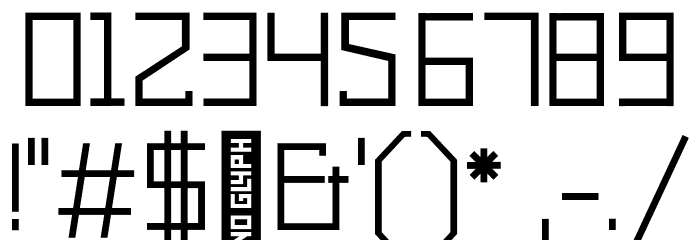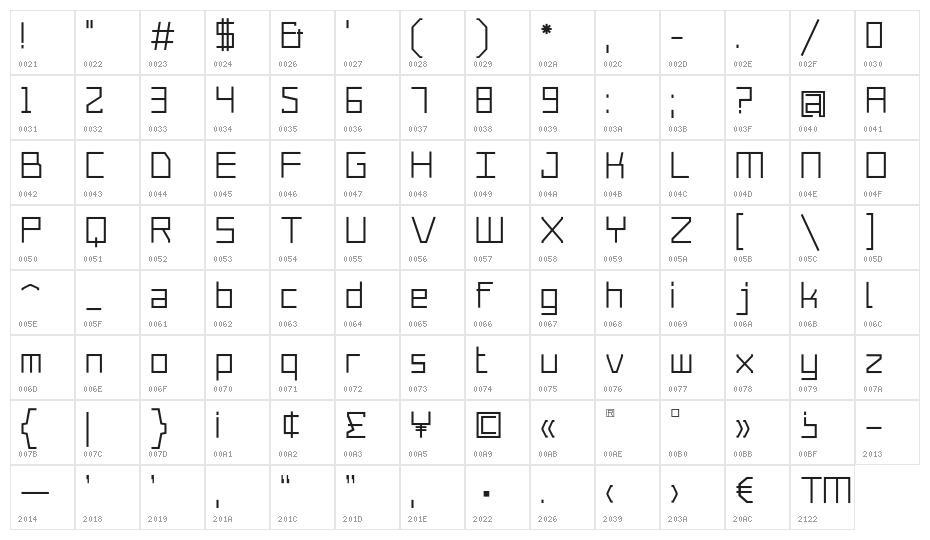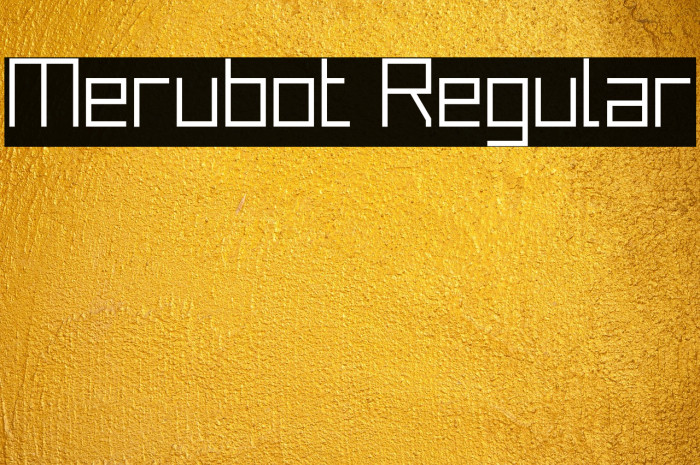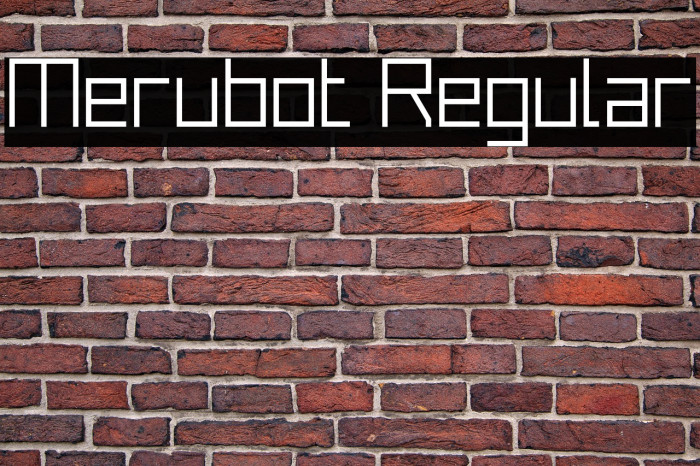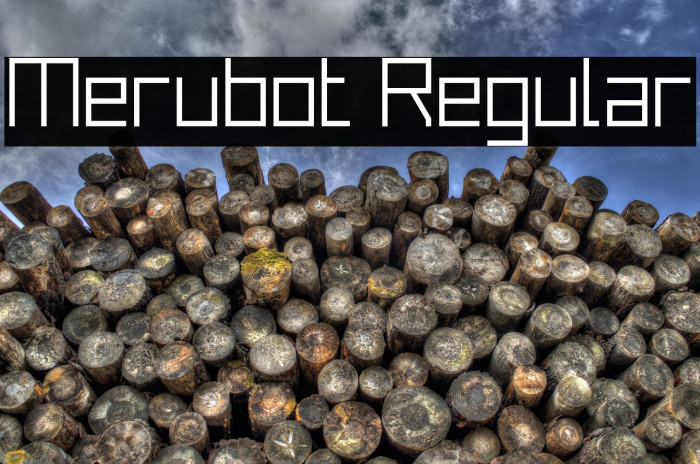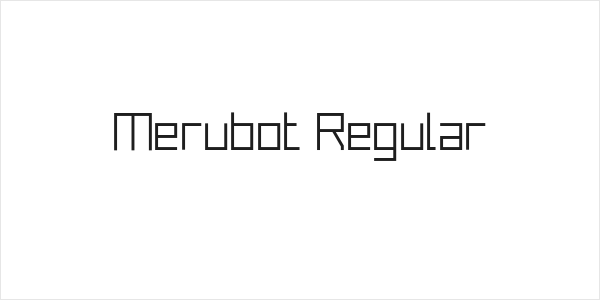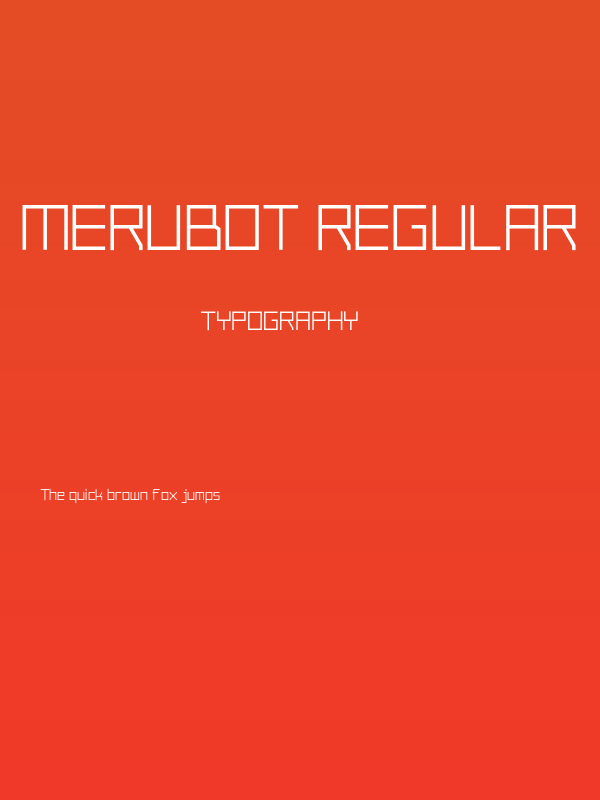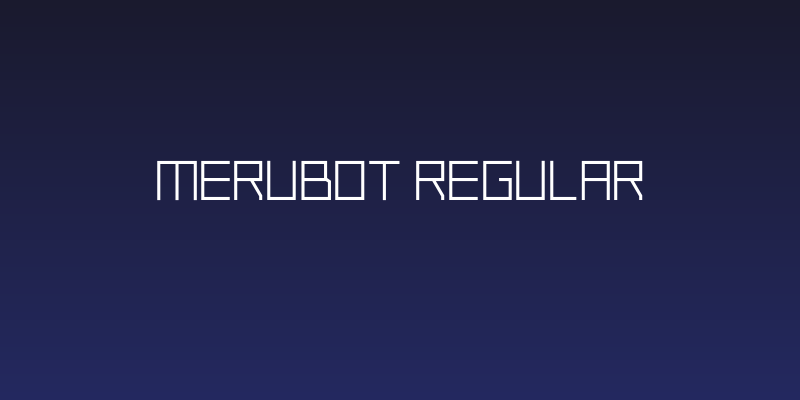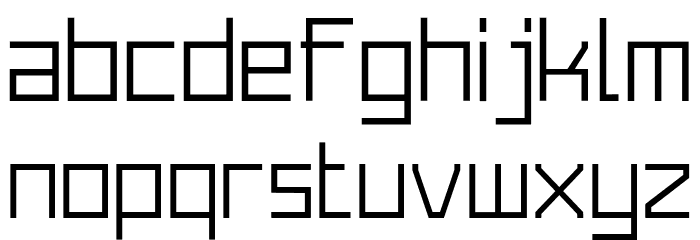
Merubot Regular Font
Merubot Regular Description
This font features a geometric and modern design with a monospaced style. Each character is constructed with straight lines and right angles, giving it a structured and technical appearance. The uniformity in character width enhances its readability and makes it suitable for digital displays. The uppercase and lowercase letters maintain a consistent height, while the numerals and special characters align seamlessly with the overall design. This font's clean and minimalistic aesthetic makes it versatile for various applications.
| Use Case | Digital displays, Coding, Technical documentation |
| Proposed Projects | Ideal for coding environments, technical documentation, digital interfaces, and modern branding projects. |